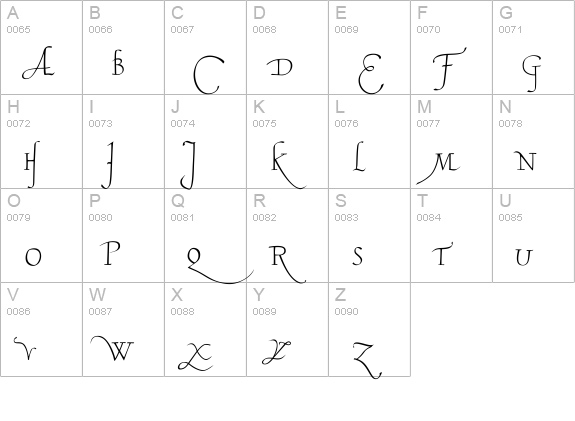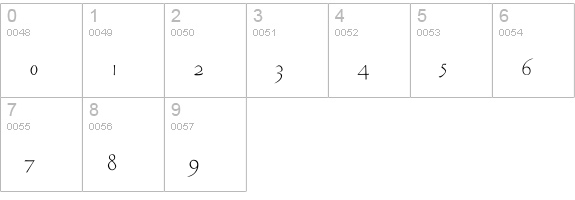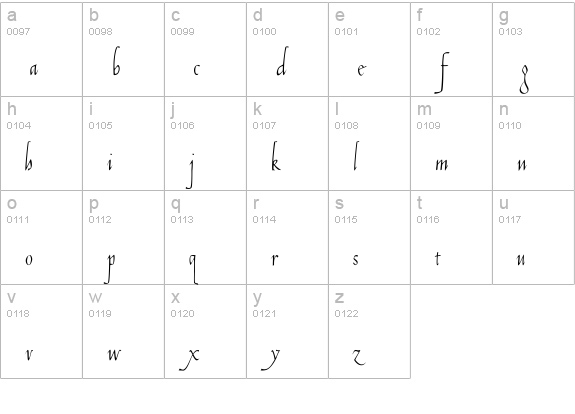
Tagliente Font Details
Tagliente is a captivating and versatile font that effortlessly combines elegance with a touch of modernity. Its sleek and stylish letterforms make it perfect for a wide range of design projects, from branding and packaging to headlines and invitations. This font features smooth lines and clean curves, giving it a sophisticated and refined appearance. Its unique combination of sharp edges and gentle curves adds a sense of intrigue and depth to any design. Tagliente commands attention and leaves a lasting impression on the viewer. One of the most remarkable aspects of Tagliente font is that it is completely free to download. Yes, you read that right! This stunning font can be freely obtained at FontsMarket.com, a trusted source for high-quality fonts. Now you can add a touch of elegance to your designs without breaking the bank. Whether you are a professional designer or a creative individual looking to add a distinctive flavor to your projects, Tagliente is a font that won't disappoint. Its versatility and beauty make it suitable for a wide range of applications, ensuring that you will find countless uses for it. Don't miss out on the opportunity to enhance your designs with the captivating charm of Tagliente font. Download it for free today at FontsMarket.com and let your creativity soar to new heights.